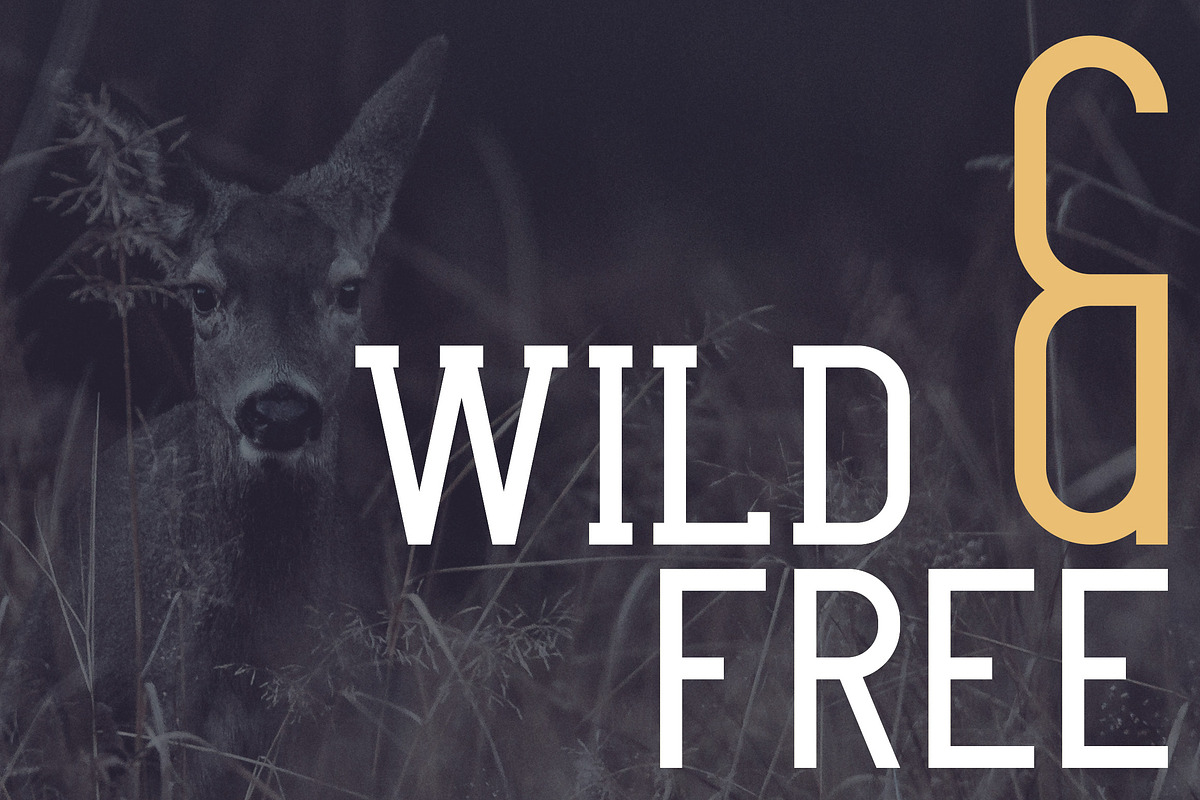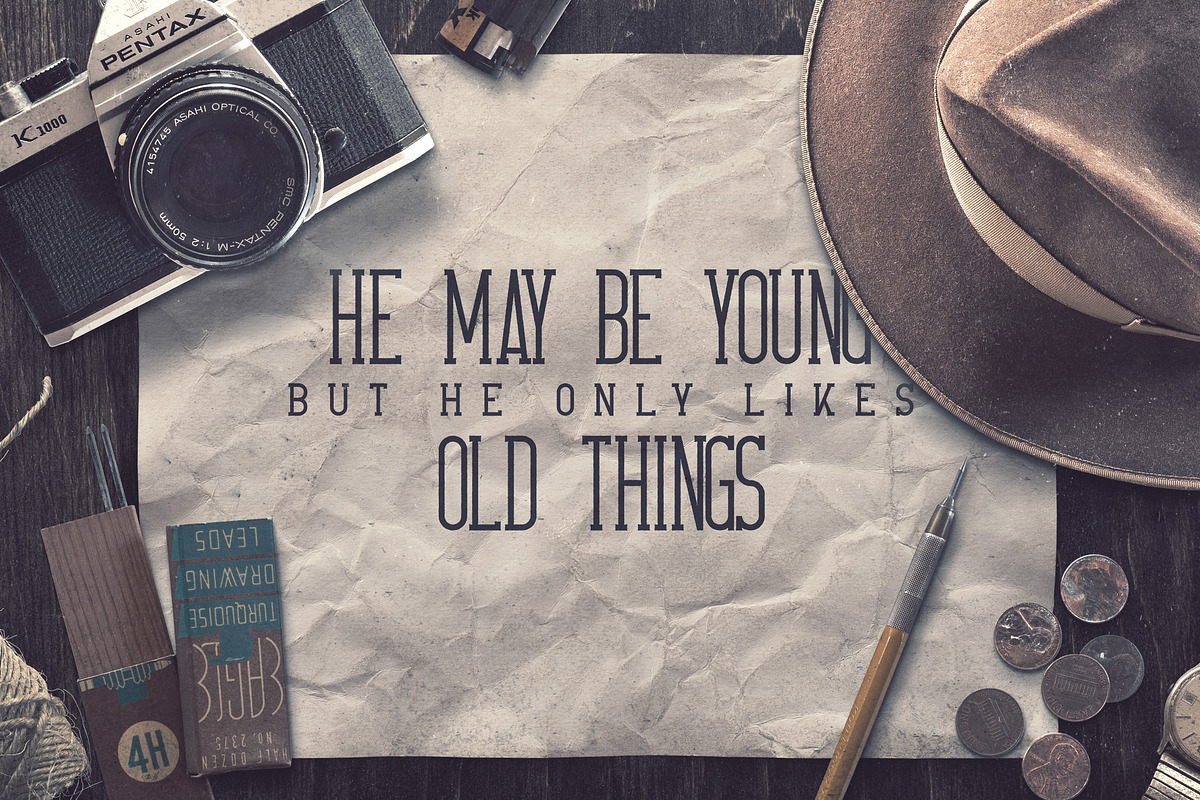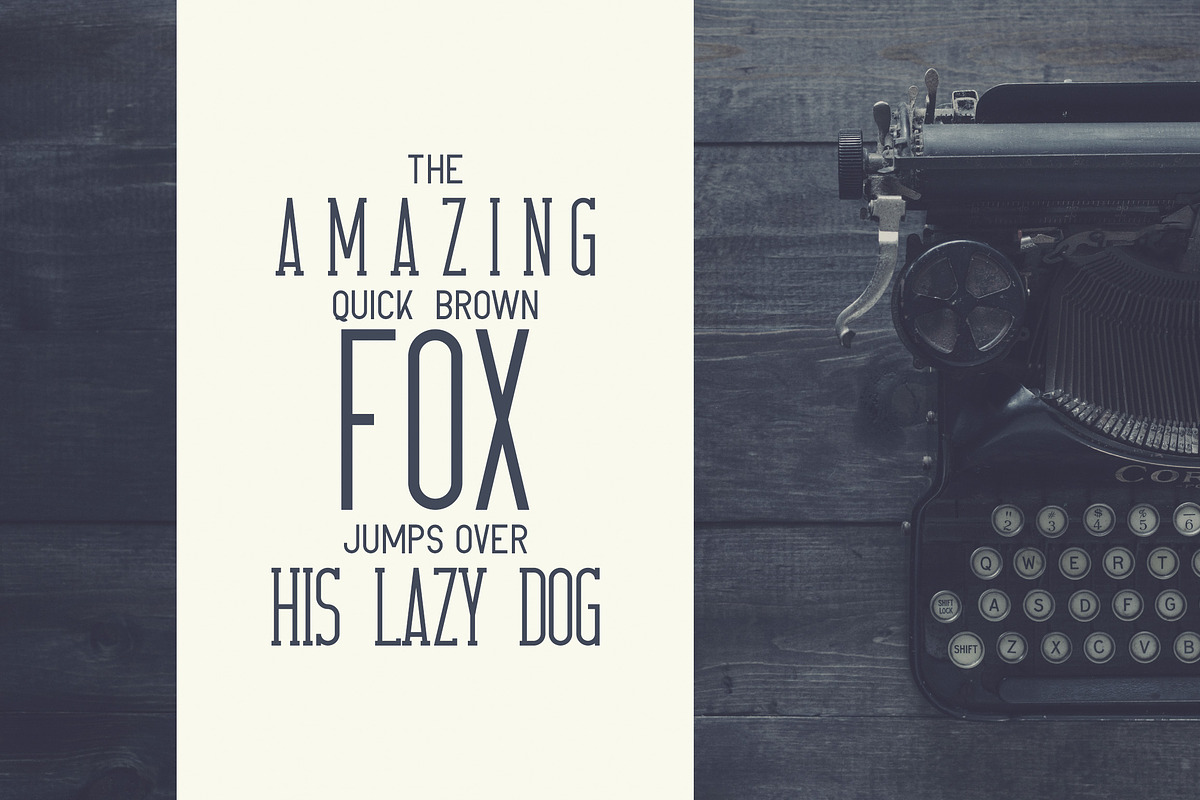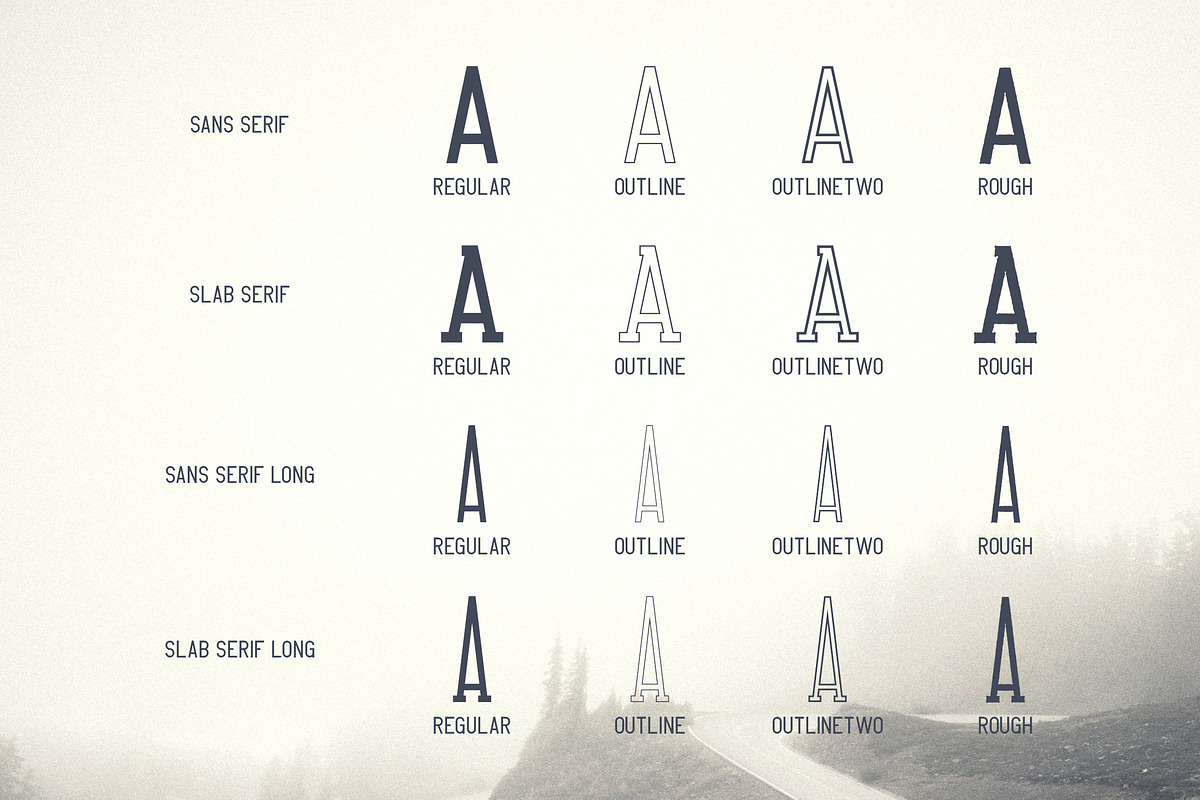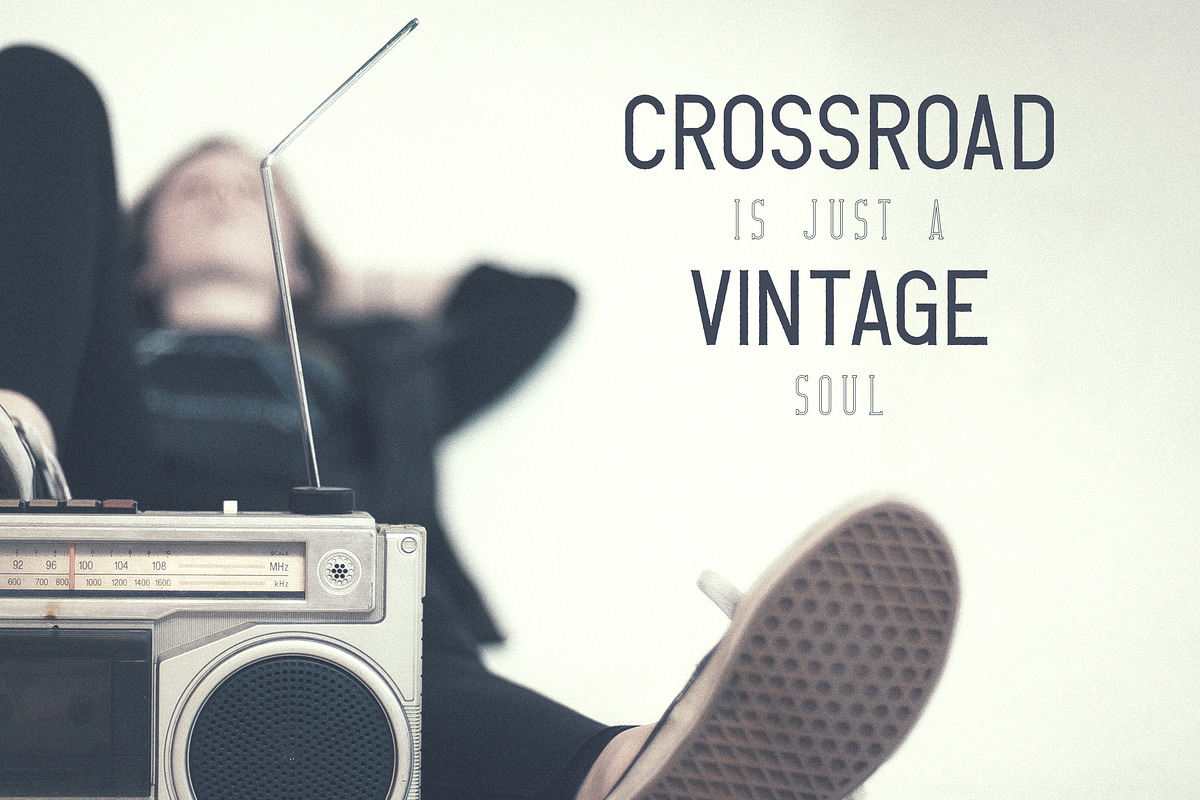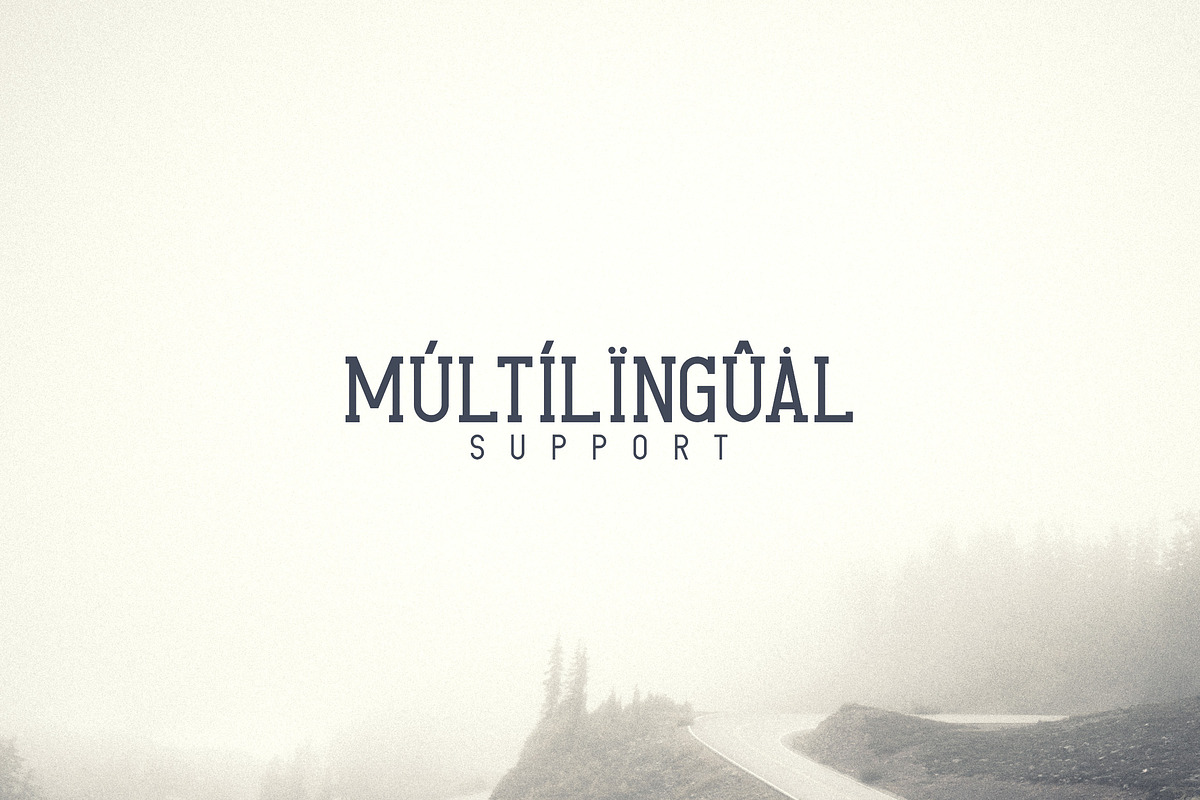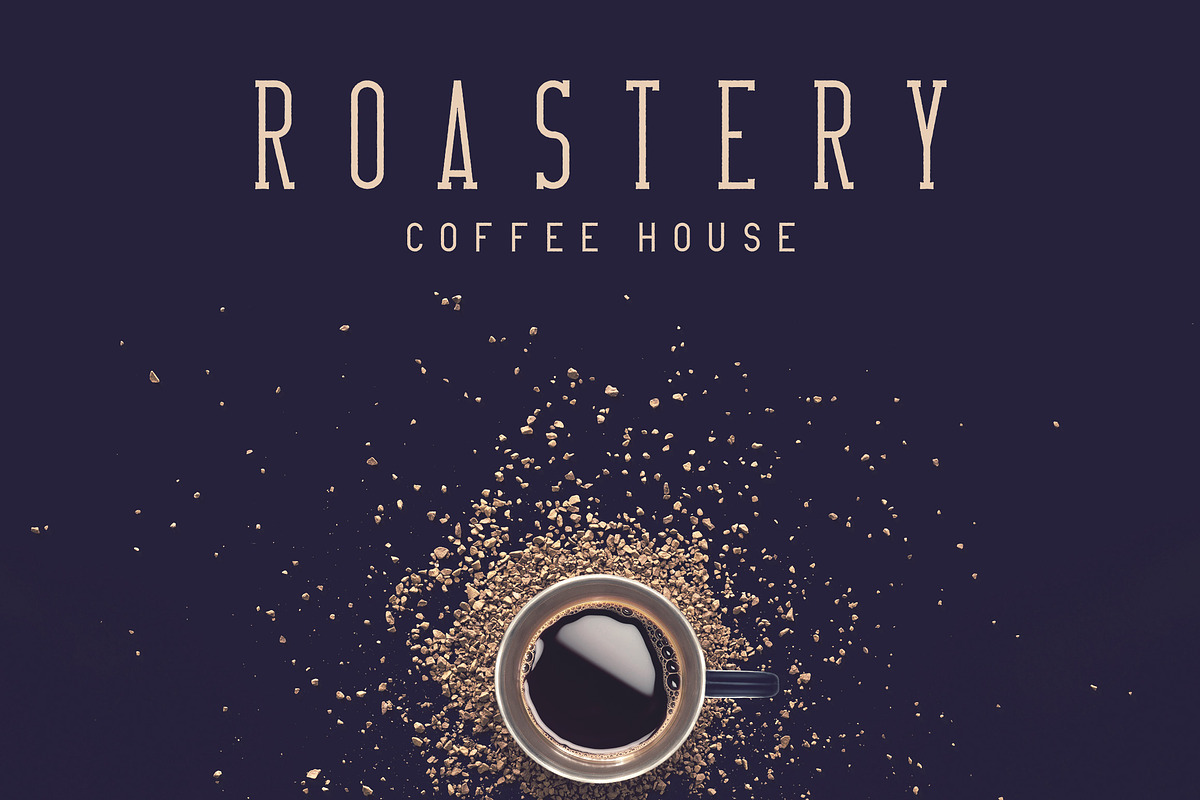
Crossroad -Vintage typeface|16 fonts
Crossroad is clean, vintage typeface with 16 fonts and multilingual support. It's a very versatile font that works great in large and small sizes.
Crossroad is perfect for branding projects, home-ware designs, product packaging, magazine headers - or simply as a stylish text overlay to any background image.
Uppercase,lowercase, numeral,punctuation & Symbol